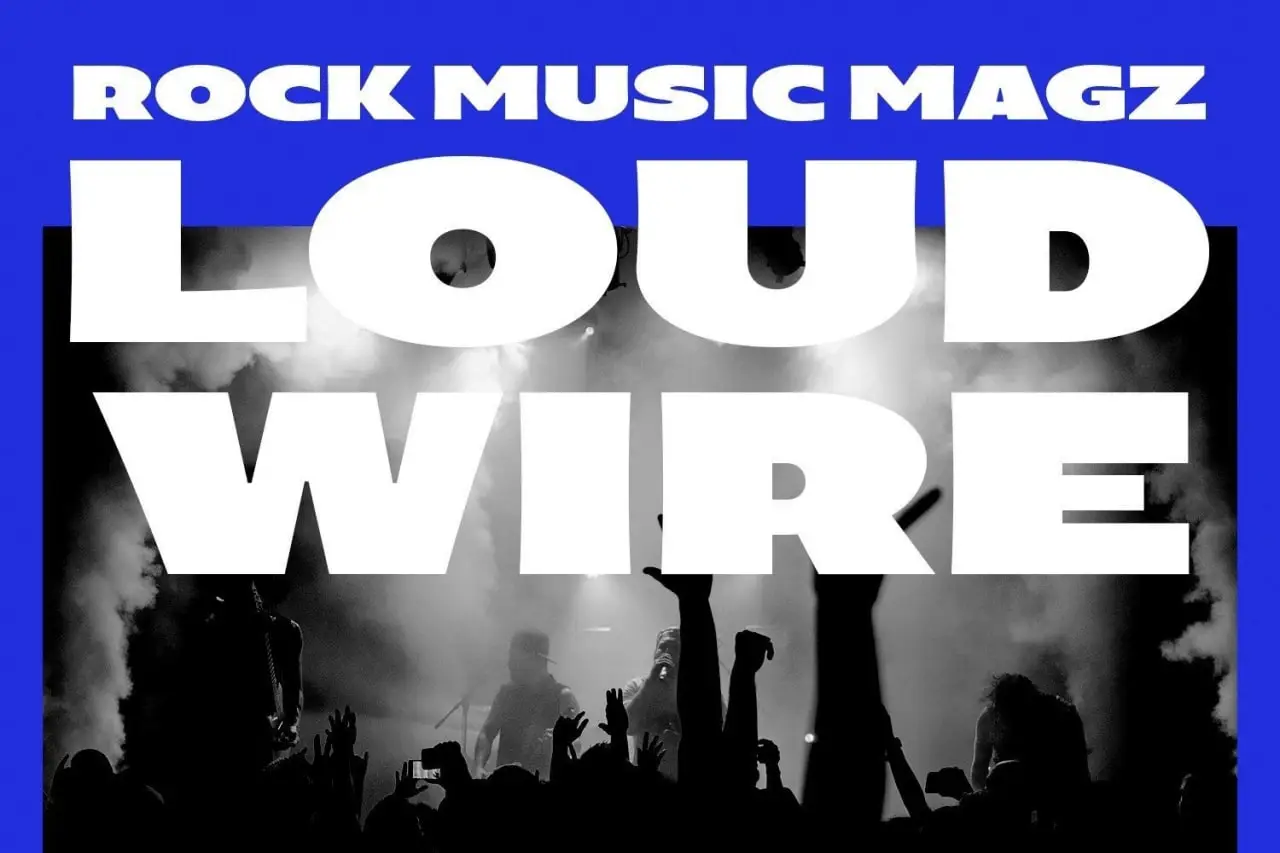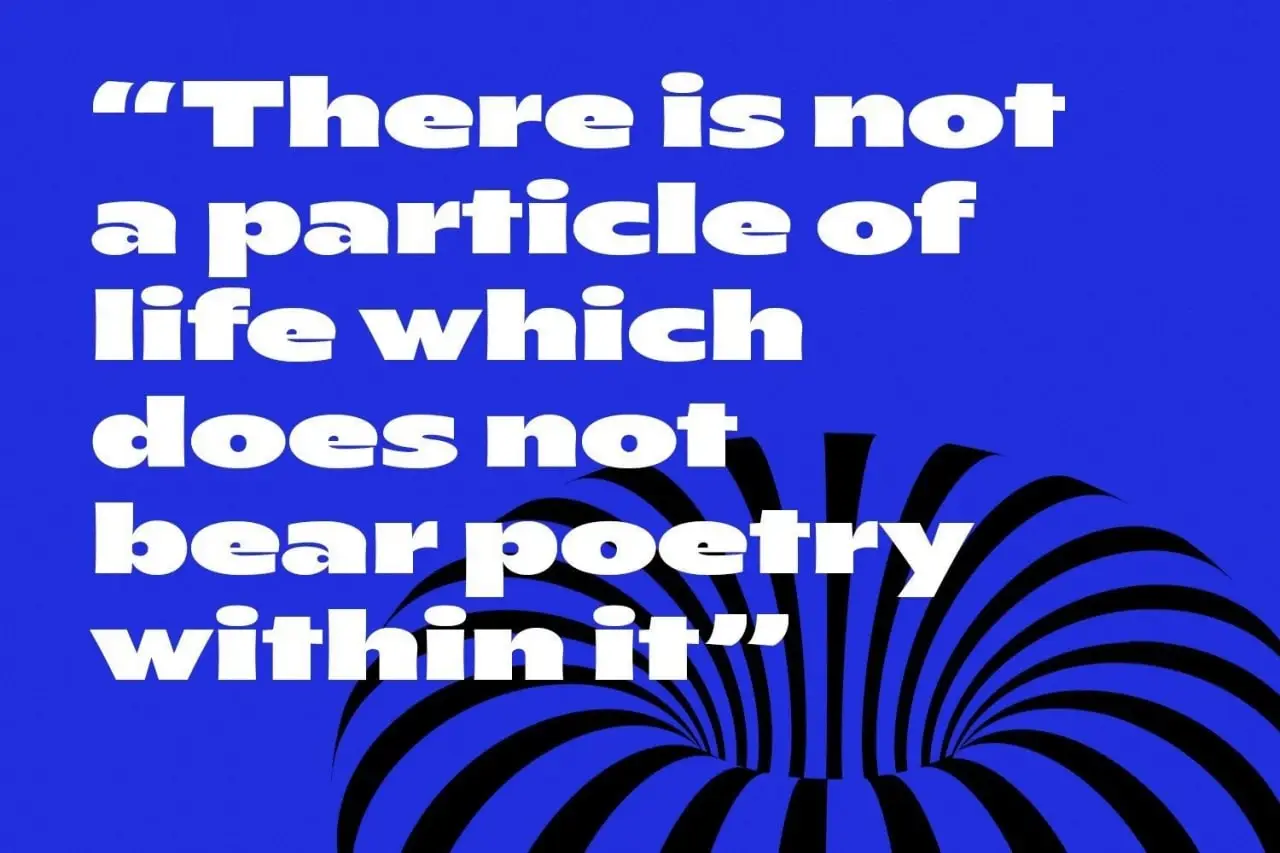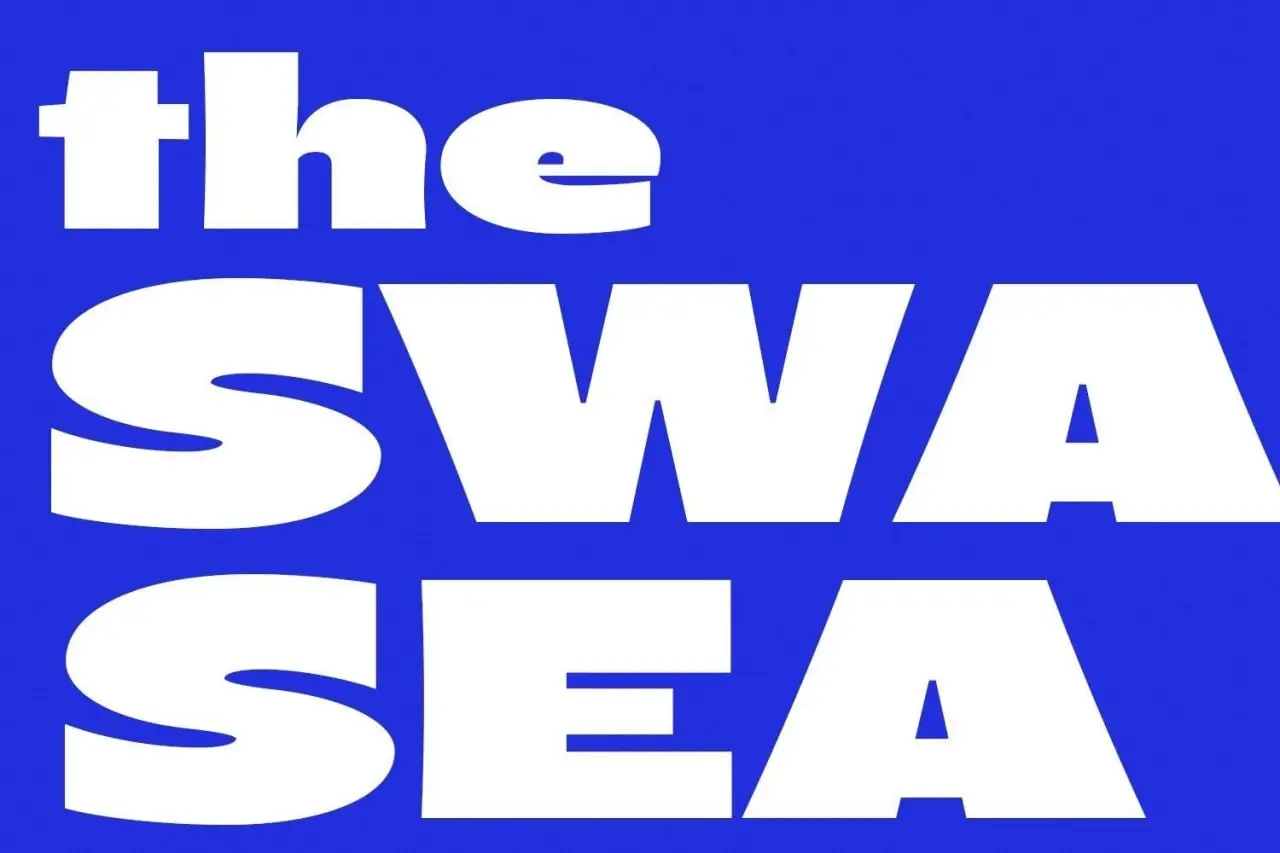
Freik Font By Gilang Maulana
Introducing the Freik Font by Gilang Maulana, a modern typeface that brings a unique flair to your design projects. This font features a clean and stylish aesthetic, making it perfect for a variety of applications.
• Multiple weights for versatile design options
• Ideal for branding and logo design
• Great for web and print projects
• Use in UI designs for a modern touch